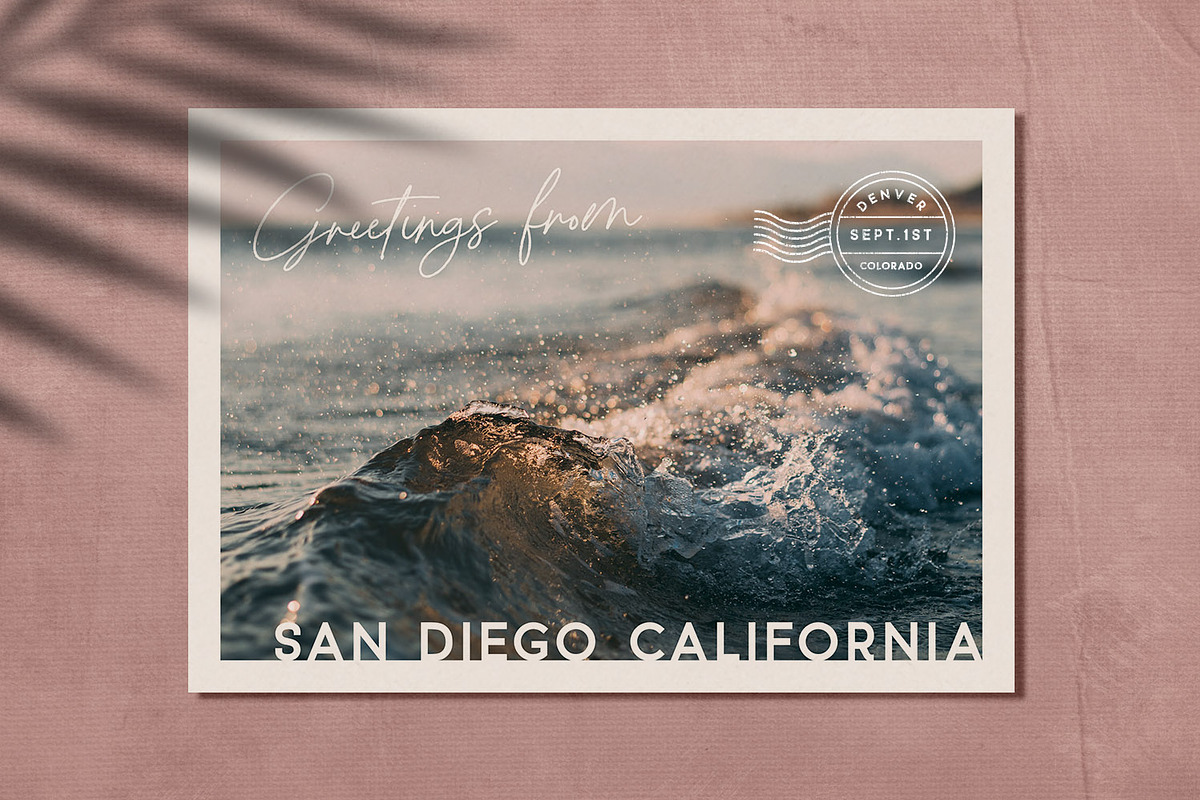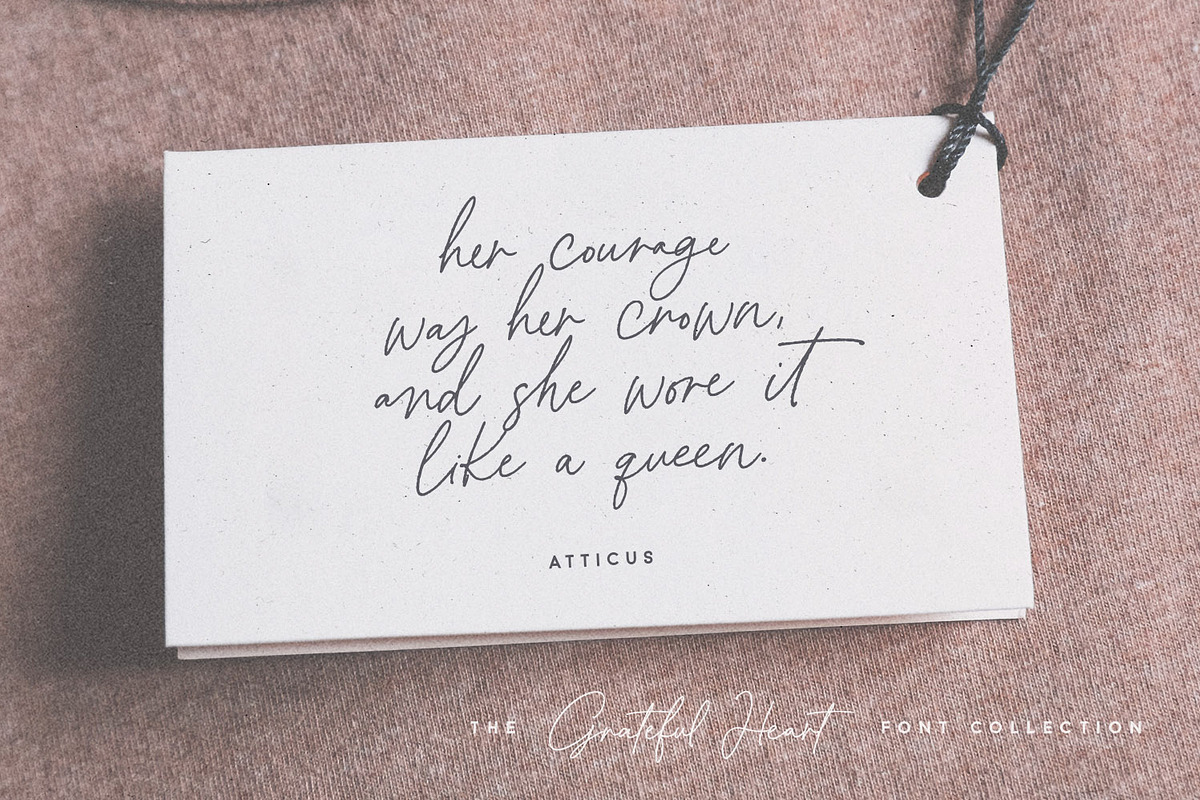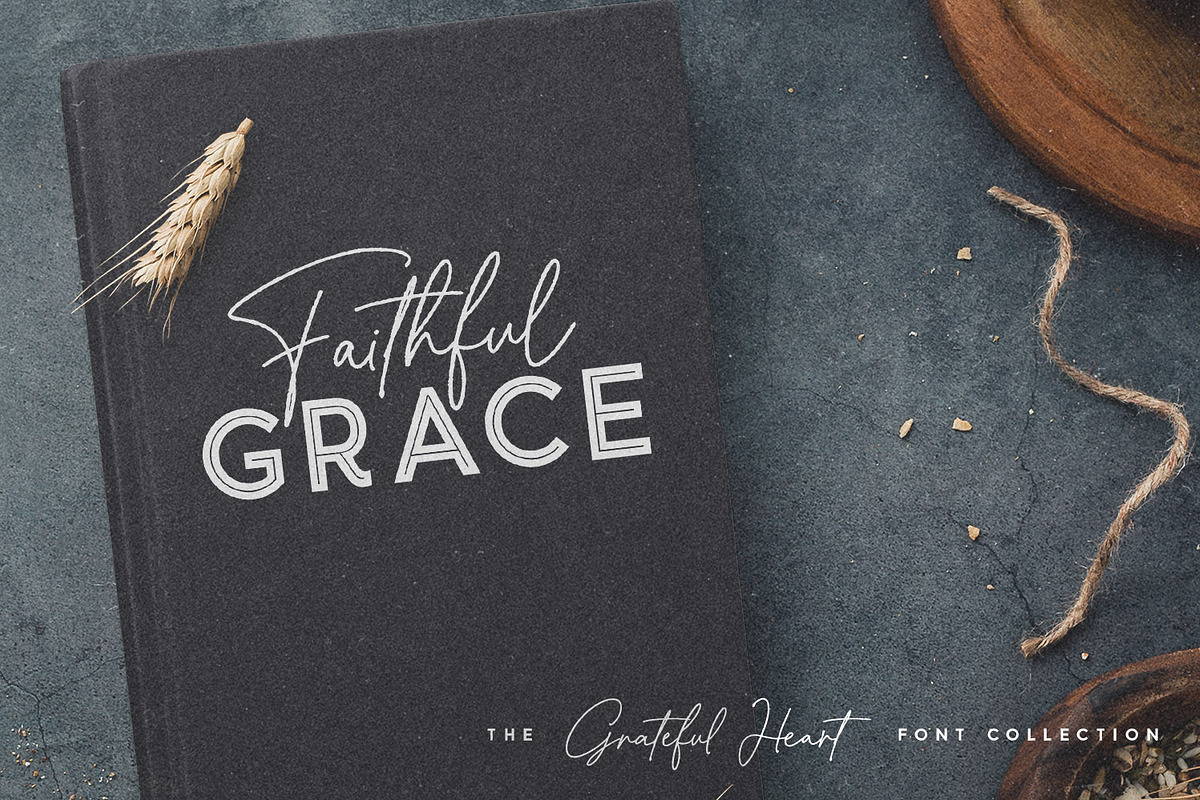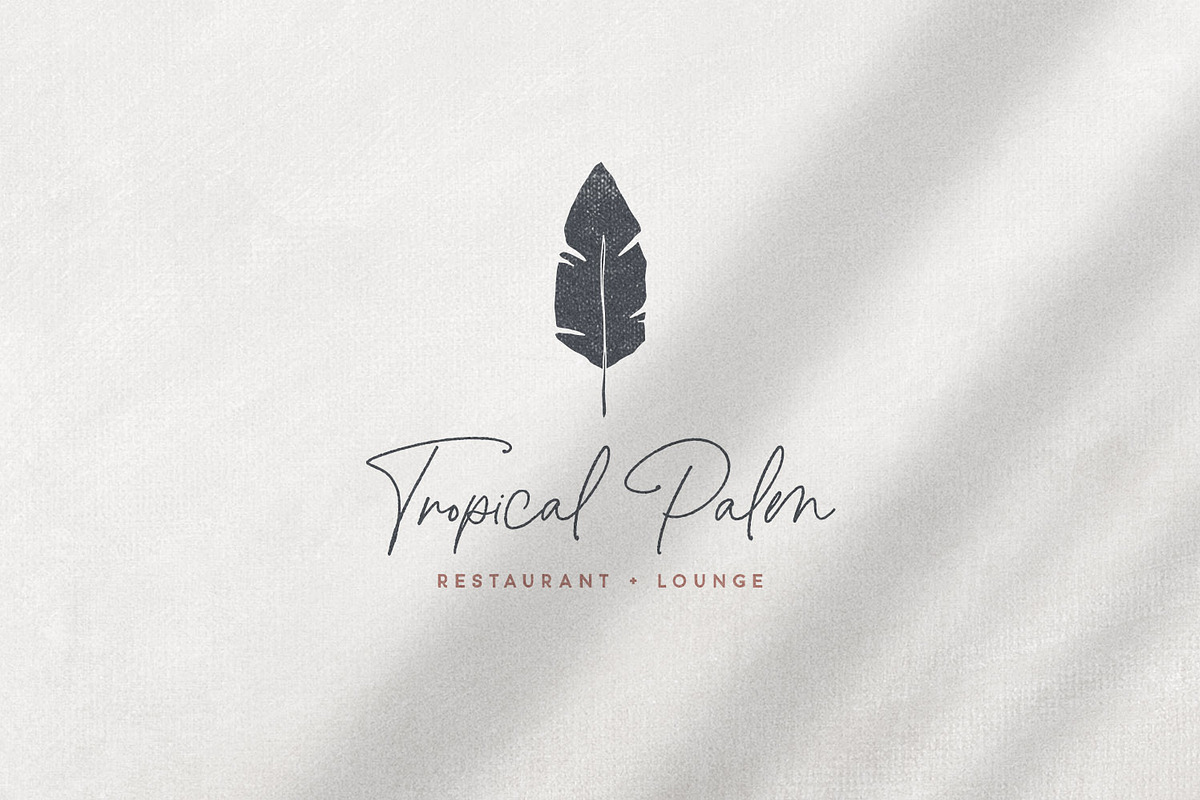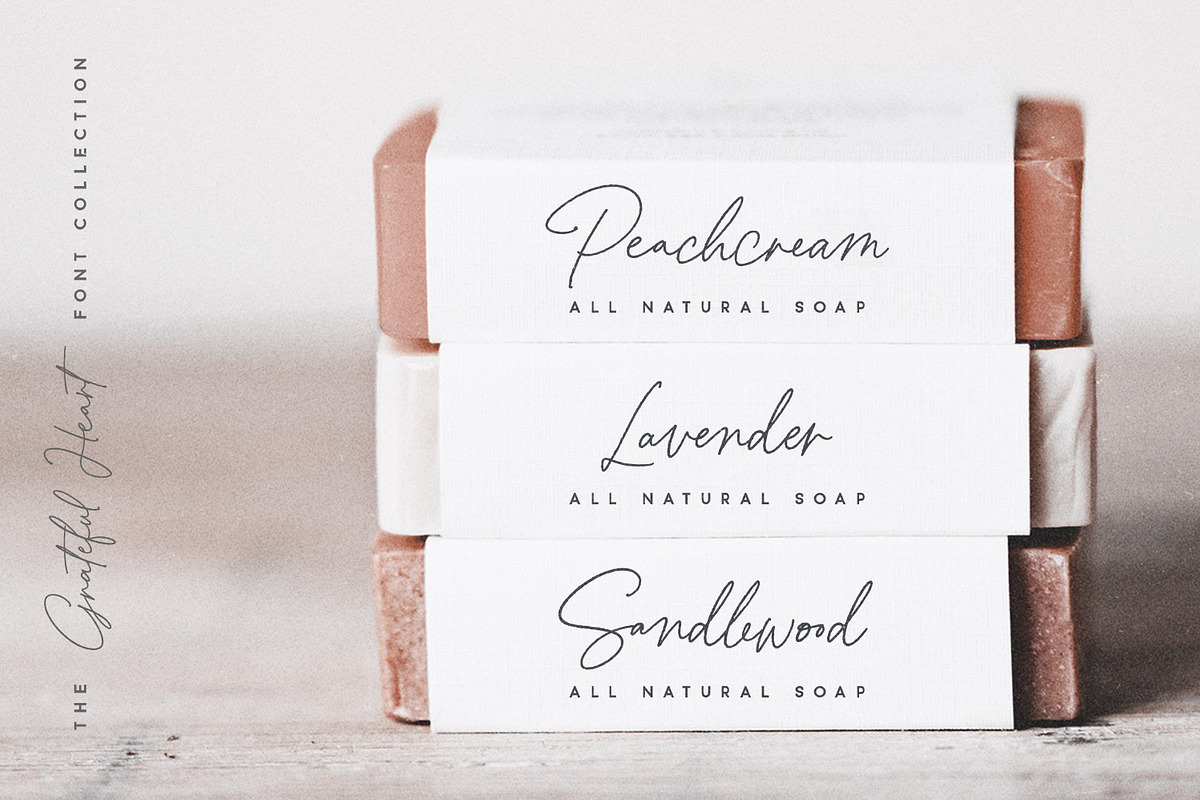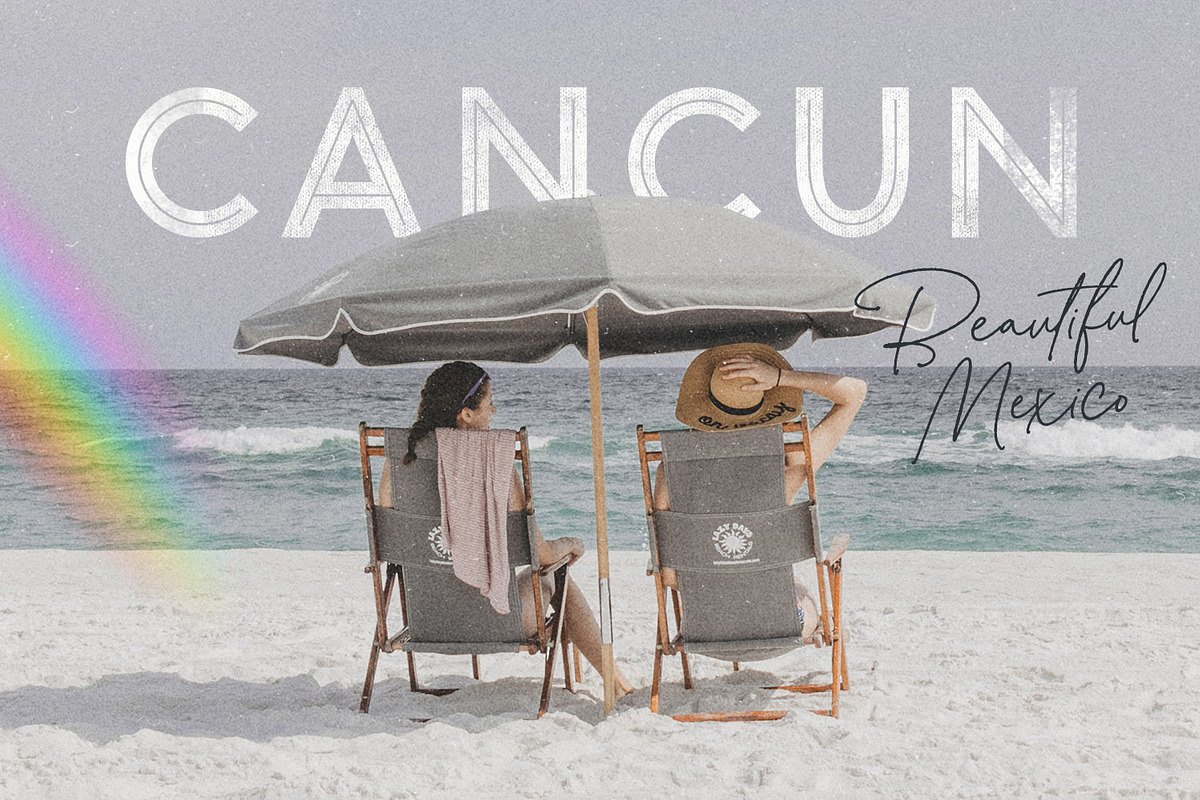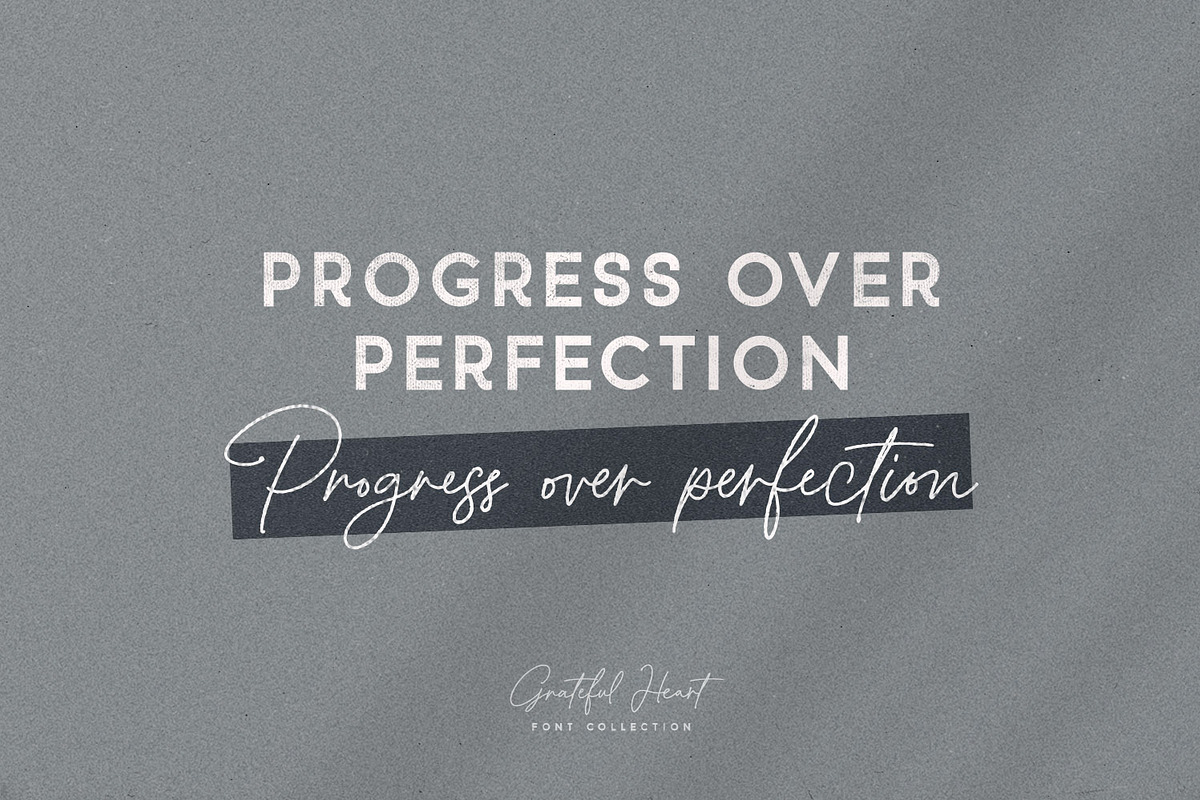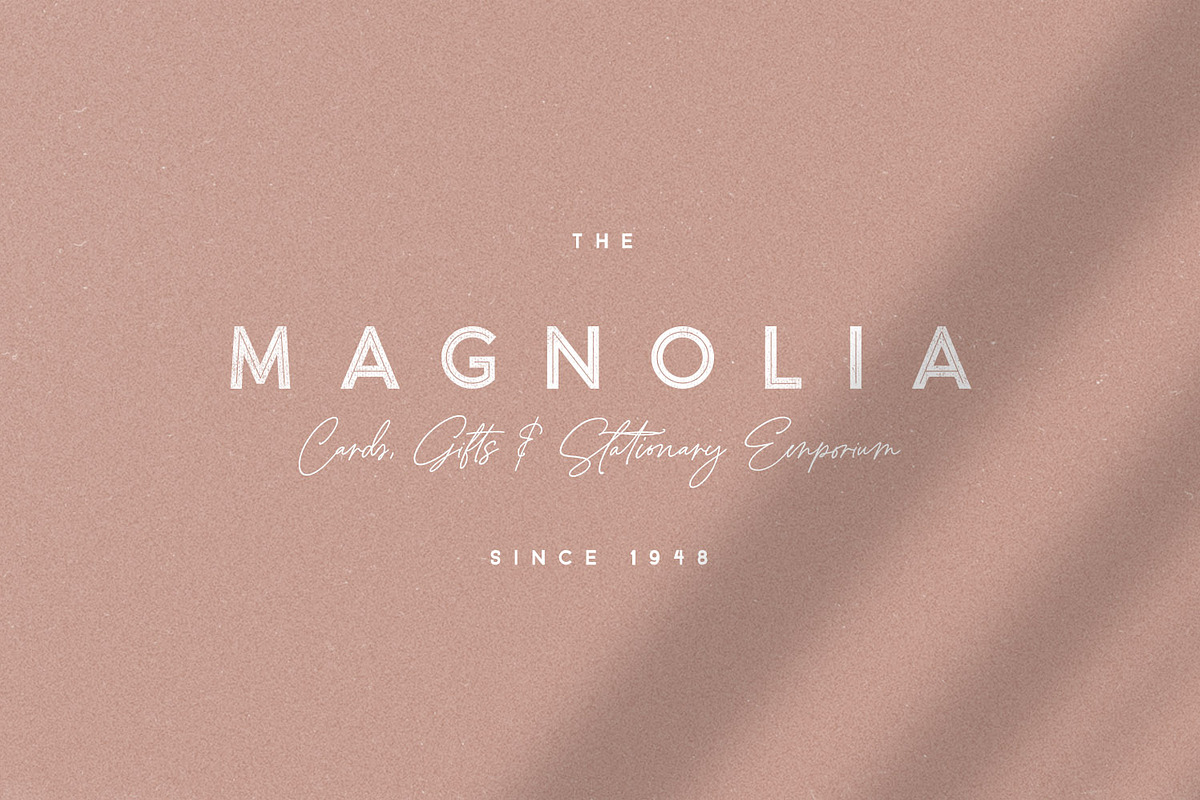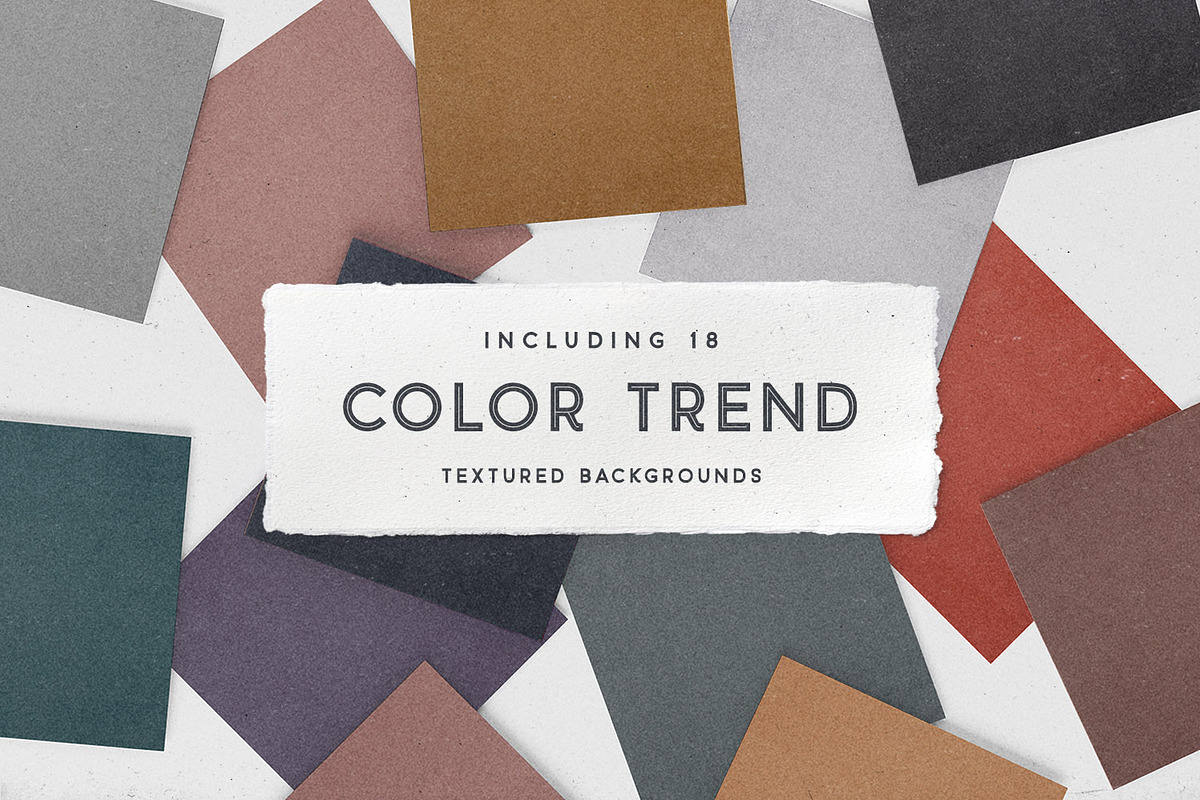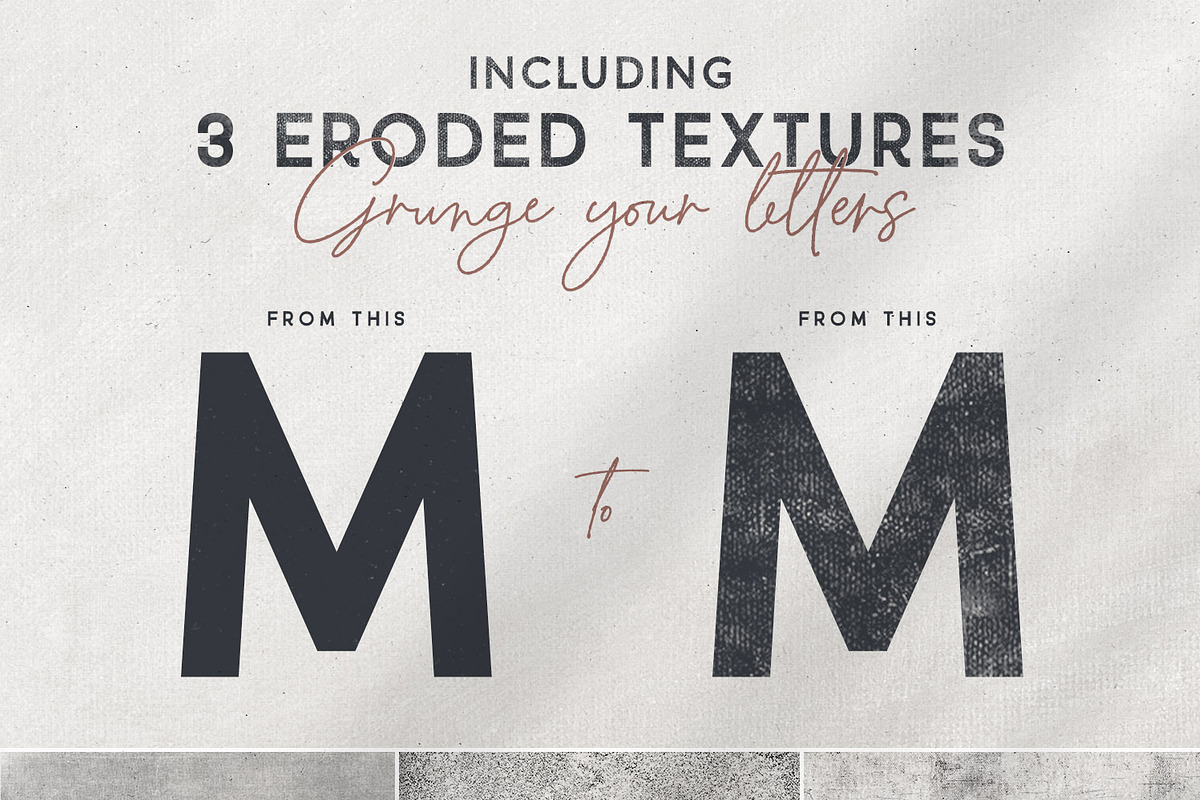
Grateful Heart Font Collection
Introducing the Grateful Heart Collection, a 'modern rustic' collection with a whole bunch of bonus goodies to maximize your creativity! I got a little carried away with the previews, but there's so many uses for this set, I just couldn't stop! 🙊 When you're done creating, use the Texture Files for a subtle eroded look, or keep it clean for crisp, legible signage.
- Grateful Heart Script - a darling handwritten, ballpoint typeface with 130 automatic ligatures to mimic natural handwriting. (OTF + Web font)
- Grateful Heart Slanted - an italic version for good measure. 😉 (OTF + Web font)
- Grateful Heart Sans - a classically designed sans serif typeface to compliment Grateful Heart Script. This streamlined sans was perfectly paired to highlight the subtle details of the script, allowing both fonts to stand out from the crowd. 💪🏼 Check out the previews to see how perfectly they work for elegant typography and branding. (OTF + Web font)
- Grateful Heart Sans Inline - The font set actually started with this baby. I wanted to design a clean, inline font that worked well with all types of scripts, and so Grateful Heart Inline was born. (OTF + Web font)
- Grateful Heart Textures - 20 handmade, color-trending background papers. 300DPI, 8x8in.
- Grateful Heart Grunge Textures - 3 Black and White Grunge Textures so that you can grunge up your letters with Photoshop Masking. Don't know how to use Masking? Have no fear, learn in 45 seconds with the video in my previews. It's so fast and easy to add some texture to your work.
- Grateful Heart Elements - 50 Hand Drawn Modern Vector Elements - Use these unique florals and line elements in logos, branding and patterns. (AI, EPS & PNGs)